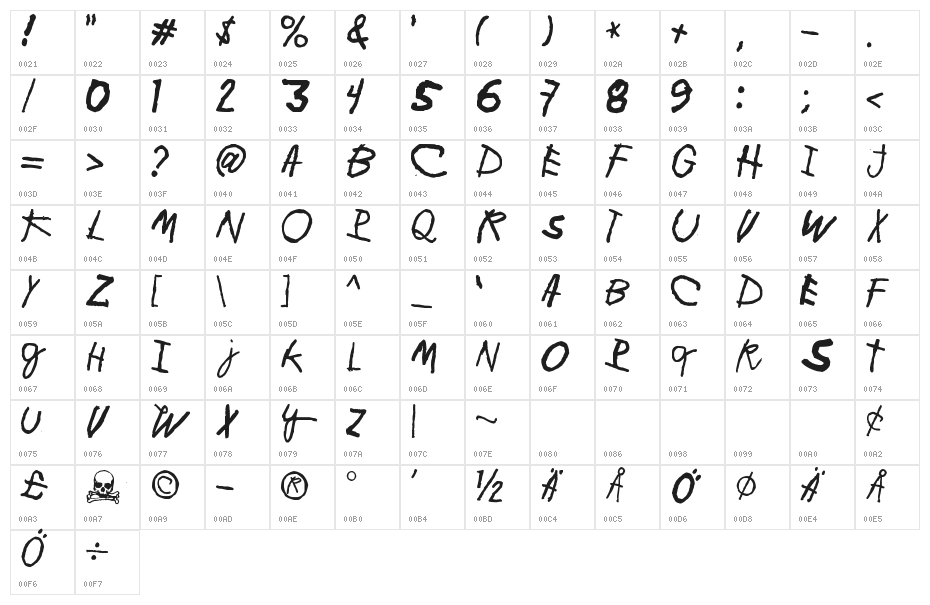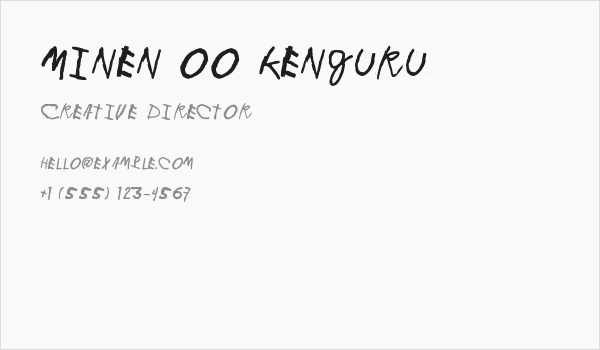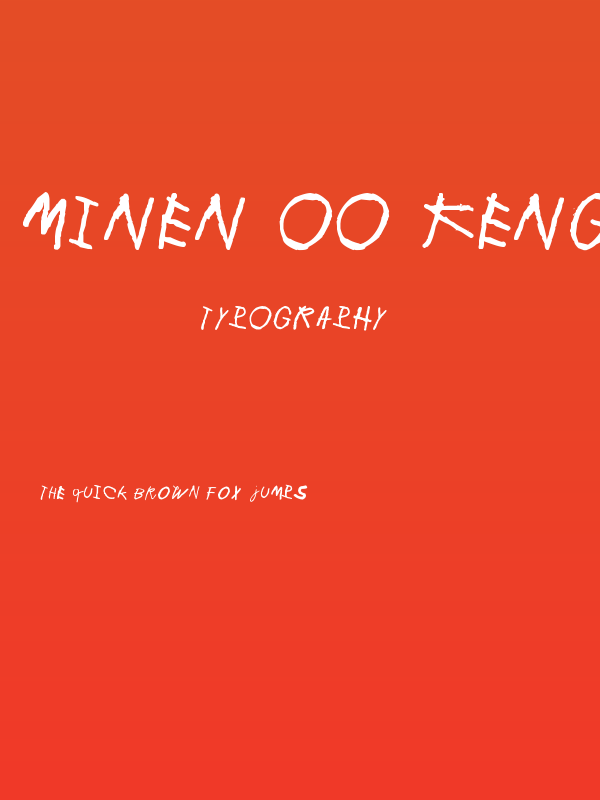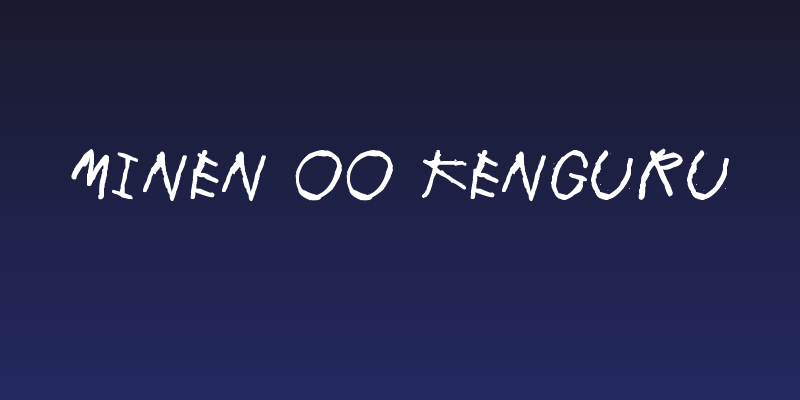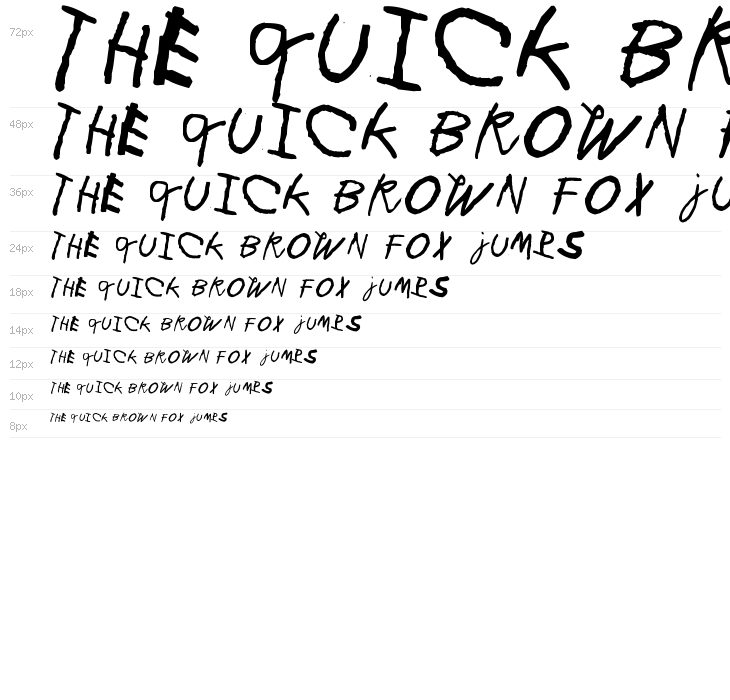
Minen oo kenguru Font
Minen oo kenguru Description
This font exhibits a bold, handwritten style with a playful and energetic feel. The letters are irregular and dynamic, giving a sense of movement and spontaneity. The strokes are thick and uneven, adding to the casual and informal appearance. The uppercase and lowercase letters maintain a consistent style, with some characters having unique, quirky shapes that enhance the font's personality. The numbers and special characters follow the same design principles, ensuring a cohesive look across all elements.
| Proposed Projects | Ideal for creative projects such as greeting cards, posters, children's books, and playful branding. |